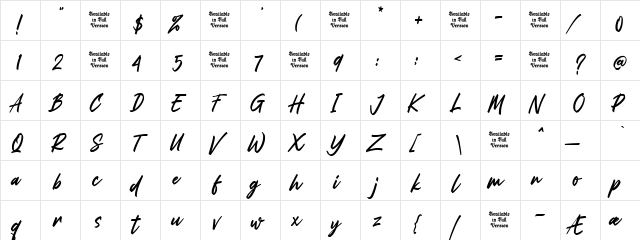
Roseshade Regular
Design Context for Roseshade Typeface
Roseshade is a composed and adaptable typeface that performs quietly and consistently across a wide range of design contexts.